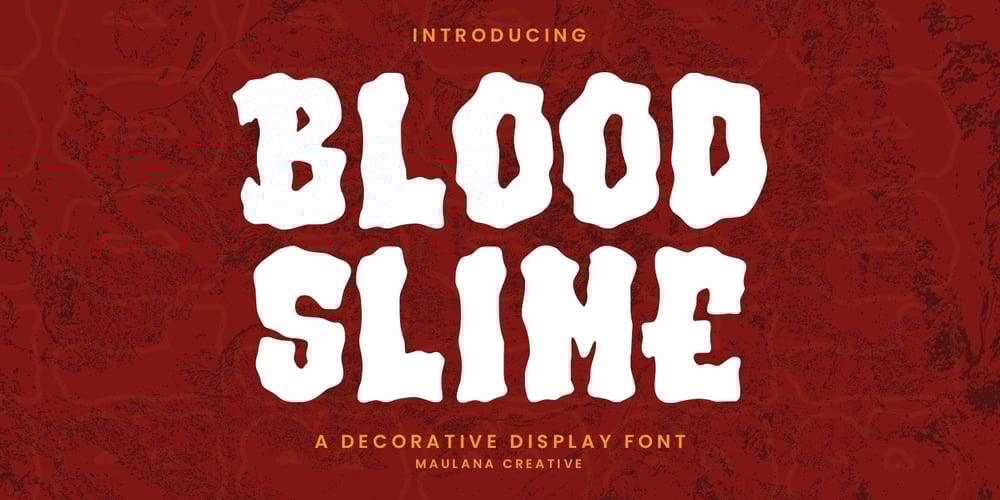
MC Blood Slime Font Family was designed by Gilang Maulana and published by Maulana Creative. MC Blood Slime contains 1 styles and family package options. Blood Slime decorative display font. Bold contrast stroke, fun character with a bit of ligatures and alternates. To give you an extra creative work. Blood Slime font support multilingual more than 100+ language. This font is good for logo design, Social media, Movie Titles, Books Titles, a short text even a long text letter and good for your secondary text font with script or serif. Make a stunning work with Blood Slime font. Cheers, Maulana Creative